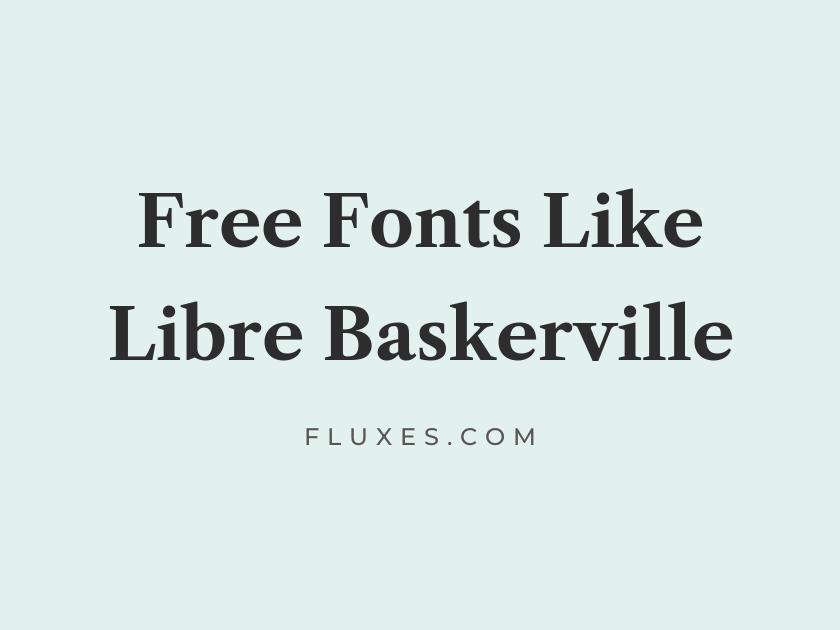
15 Best Free Fonts Similar to Libre Baskerville
Readers who love the warm, bookish feel of Libre Baskerville often go looking for close cousins once they need more weights, a different personality, or simply a fresh face for a new project. Built as a free, web-optimized take on the classic Baskerville, it set a template that a lot of other Google Fonts serifs also follow: generous x-height, sturdy strokes, and a comfortable reading rhythm on screen. The fonts below share that same lineage of transitional and old-style serifs designed for long-form text, editorial layouts, and blogs, even though each brings its own character to the page.
Libre Caslon Text
Set your chapters in a familiar, readable serif
Libre Caslon Text
Cut from the same cloth as Libre Baskerville almost literally, this one was drawn with the same goal: a classic serif rebuilt specifically for comfortable reading on screens. If Libre Baskerville is your baseline, this is the sibling to try first, since the proportions and reading rhythm will feel instantly familiar while the letterforms lean a touch more restrained and formal.
A classic book face reborn for the web
Modeled after old-style book typefaces in the Garamond tradition, Crimson Text carries a literary, slightly antique warmth that suits novels, essays, and long-form articles. It reads beautifully at body sizes but can feel a little delicate for large display headlines, so save the bold weight for emphasis rather than banners.
Where classic serifs meet modern blogging
Lora brings a subtle calligraphic swing to its curves, giving it a contemporary, slightly informal warmth that has made it a favorite for blog and magazine templates. It pairs naturally with clean sans-serifs in a header, and its balanced x-height keeps paragraphs from feeling cramped.
Clear, sturdy text for reports and documentation
Designed in Russia with broad language support in mind, PT Serif favors clarity over flourish. It holds up well in dense interfaces, documentation, and data-heavy layouts where legibility at small sizes matters more than personality.
Built specifically for comfortable on-screen reading
Merriweather was engineered from the ground up for screens, with sturdy, slightly condensed letterforms that stay legible even in narrow columns. It has become something of a default for blog body text, which makes it a safe, tested choice when you want reliability over novelty.
A refined serif built to pair with sans-serif
Adobe designed this one as the serif counterpart to Source Sans, so it was made from day one to sit alongside a clean sans in headers or UI labels. The result is understated and well-mannered, with just enough contrast to feel editorial without drawing attention to itself.
A slab serif with weight and presence
Bitter trades the bracketed elegance of Baskerville-style serifs for slab-like sturdiness, giving text a firmer, more grounded feel. It works well at larger sizes and in pull quotes, though its heavier strokes can feel a bit dense if used throughout very long passages.
A dependable serif with global language support
Part of Google’s Noto family, this is less about personality and more about coverage: it renders cleanly across an enormous range of languages and scripts. Choose it when consistency across a multilingual site matters more than distinctive character.
An elegant serif tuned for digital reading
Spectral was designed specifically for on-screen reading at a range of sizes, and it shows in the way its letterforms stay crisp from small captions up to display type. There’s a quiet sophistication to its proportions that suits editorial sites, portfolios, and long-form journalism alike.
A faithful revival of a Renaissance classic
This is a careful digital revival of Claude Garamond’s sixteenth-century type, and it carries all the delicacy of that era: fine hairlines, elegant curves, and understated contrast. That same delicacy means it can look thin and a little pale at small sizes on lower-resolution screens, so it earns its keep best in printed matter or larger web text.
A wholesome serif with old-style roots
Its name means “wholegrain” in German, and Vollkorn lives up to it with a sturdy, unpretentious warmth that was refined over years specifically for body text legibility. It’s a dependable workhorse for books, articles, and any project where readability should never be in question.
A scholarly serif for classical and academic text
Cardo grew out of academic typesetting, with old-style proportions and support for classical and historical characters that make it a natural fit for scholarly publishing. It reads best in longer, print-like layouts rather than tight web widgets or compact UI text.
A serif shaped for confident blog headlines
Domine was built with blogging in mind, striking a balance between the sturdiness needed for body copy and enough personality to hold its own in a headline. It’s a straightforward, no-fuss option for writers who want their words to look considered without extra decoration.
If multilingual support is a priority, Noto Serif and PT Serif are the safest picks, since both were built with broad character coverage in mind.
When in doubt, test a font at your actual body size and column width before committing; some of these read beautifully in a mockup but thin out on real screens.
Any of these free Google Fonts serifs can stand in comfortably for Libre Baskerville, and the right one really comes down to how much warmth, formality, or literary character you want your text to carry.